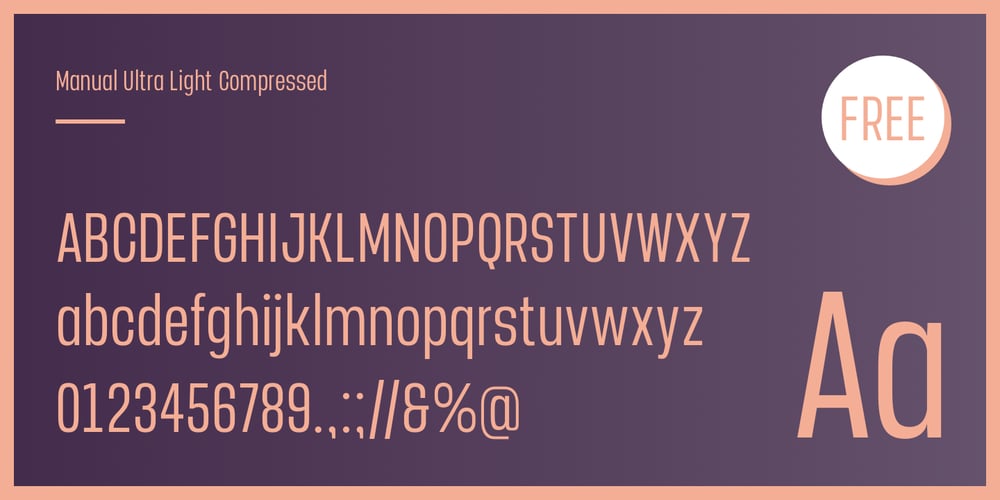
Manual Font Family was designed by Dan Jones and published by TypeUnion. Manual contains 80 styles and family package options. Manual is an 80 font super family formed of 10 weights in 4 different widths. The font is styled with a slight retro feel to give it a unique appearance. Manual is a blue-collar font that works hard for you and your design ideas. The higher x-height enhances the readability for smaller, more informative text sizes whereas the black weights create beautiful, impactful headlines to fit a variety of spaces. The support of the expansive weights and widths will give your design a truly unique feel.